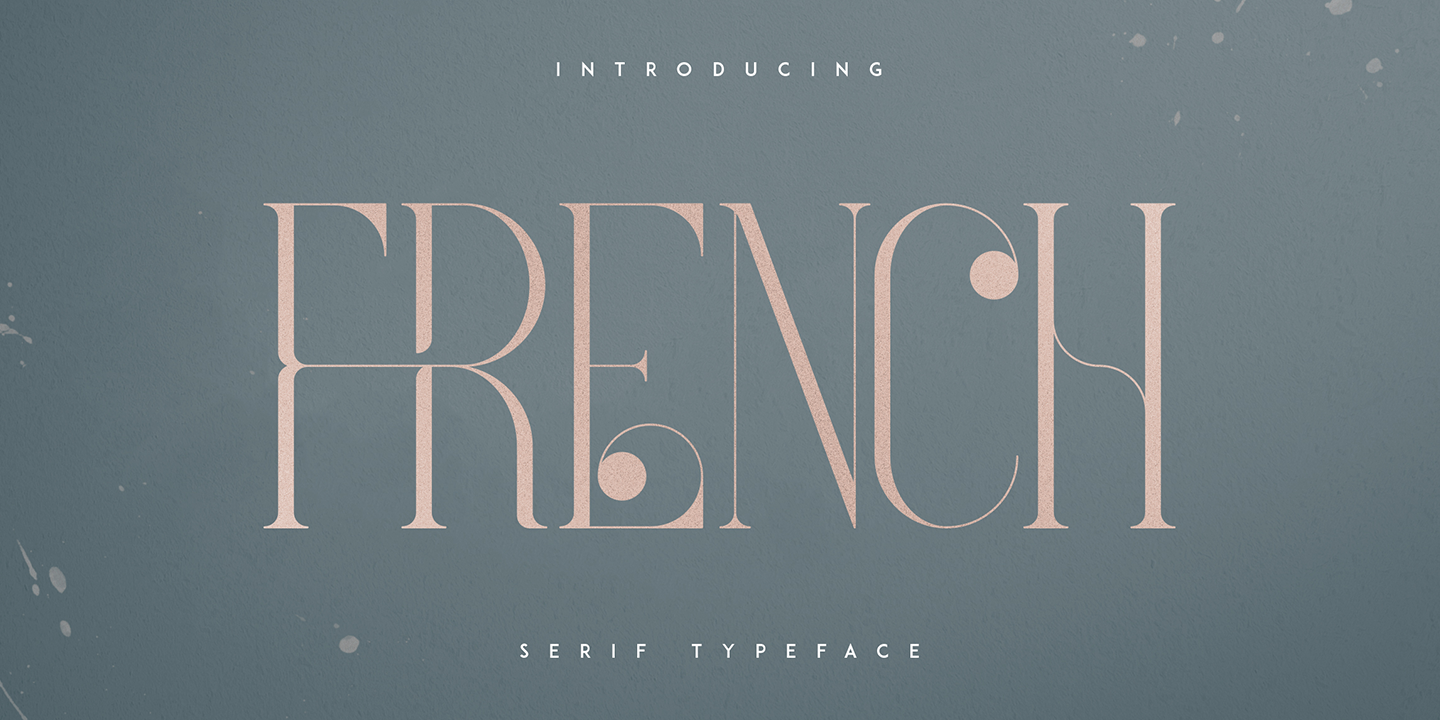
French VP Font is an exquisitely elegant and sophisticated typeface, perfectly suited for projects that aim to capture the timeless allure of French chic and vintage charm. Imagine it gracing the luxurious branding for a Parisian fashion house, adding an authentic and refined touch to patisserie menus, or providing a distinguished aesthetic for high-end cosmetic lines. It's also an excellent choice for crafting beautiful wedding invitations with a European flair, designing unique labels for artisanal wines, or bringing a polished, romantic feel to personal blogs and cultural event promotions. If you're looking to convey grace, heritage, and an undeniable sense of classic beauty, French VP Font is an outstanding selection.
What makes French VP Font so exciting? It’s its unique ability to blend the intricate details of traditional French typography with a subtle contemporary refinement, resulting in a font that feels both profoundly classic and remarkably versatile. This font often features graceful curves, delicate ligatures, and a harmonious flow that gives it an undeniable charisma and visual richness, reminiscent of timeless handwritten calligraphy or vintage prints. Despite its decorative flair, French VP Font is meticulously designed to maintain excellent readability, ensuring your message is communicated beautifully and with an ethereal, captivating tone. Designers will appreciate its versatile application in lending an air of established quality and artistic integrity to any project, ensuring that your visuals resonate with both contemporary taste and a timeless sense of refined beauty.
The French VP Font family is typically designed to showcase a singular, beautifully crafted script or display style that perfectly embodies its unique appeal. While it may not feature extensive weight variations like a traditional text font, its strength lies in its inherent personality and often includes a rich set of stylistic alternates, swashes, or ligatures that enhance its elaborate aesthetic. These subtle details allow French VP Font to maintain its cohesive and enchanting look across various applications, from elegant brand endorsements to charming personal correspondence. Discover the captivating allure of French VP Font Free Download and infuse your designs with an unforgettable sense of romantic splendor.